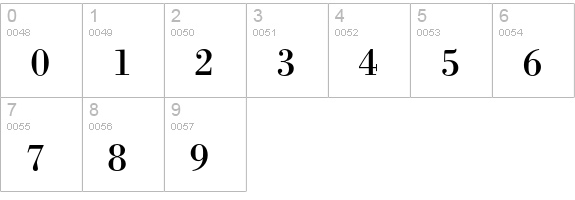
Bodoni Font Details
Bodoni is a classic and elegant serif typeface known for its timeless beauty and sophisticated design. With its high contrast between thick and thin strokes, Bodoni exudes a sense of refinement and luxury that makes it a popular choice for high-end publications and branding materials. The clean lines and graceful curves of this font give it a sense of sophistication and elegance that is perfect for conveying a sense of prestige and class. What sets Bodoni apart is its versatility - it can be used for a wide range of design applications, from editorial design to wedding invitations to luxury branding. Whether you're looking to create a stunning poster or a stylish logo, Bodoni is sure to elevate your design and make a lasting impression. And the best part? Bodoni is available for free download at FontsMarket.com, making it accessible to designers of all levels. So why wait? Add a touch of timeless elegance to your next project with the exquisite Bodoni font.